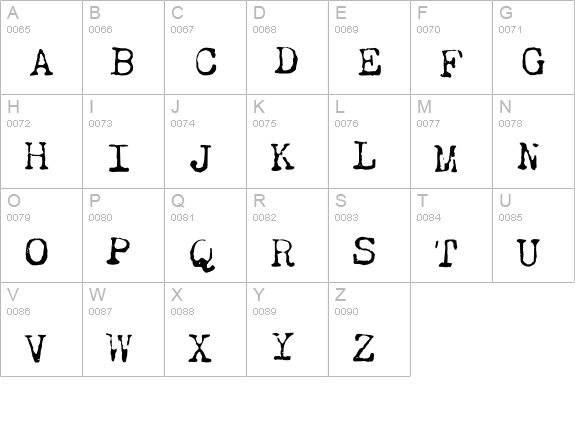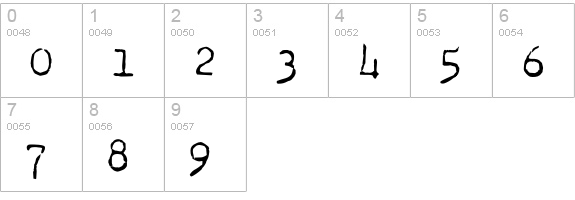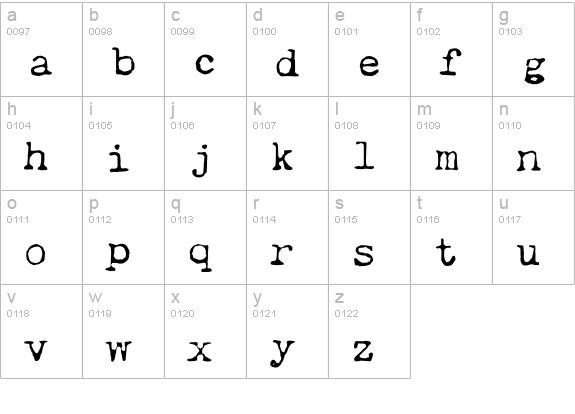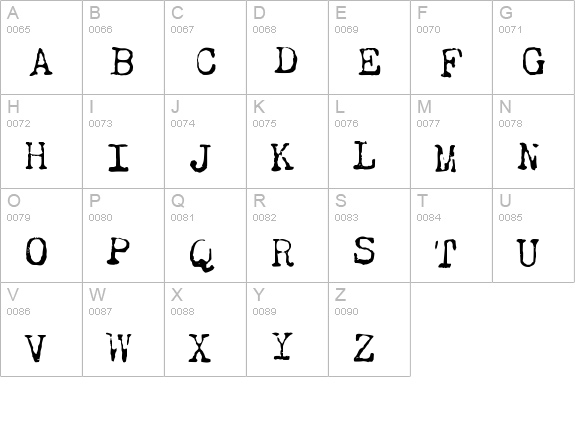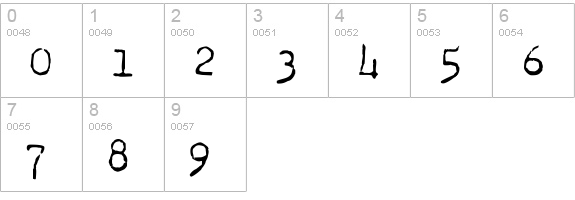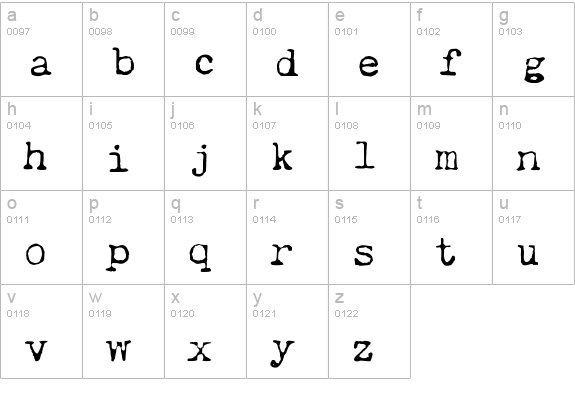
Chandler42Rough Font Details
Chandler42Rough font is a unique and stylish typeface that brings a touch of edginess to any design project. With its rough and rugged appearance, this font is perfect for adding a bold and dynamic look to your text. The irregular lines and distressed edges give Chandler42Rough font a raw and authentic feel that is sure to make a statement. Best of all, Chandler42Rough font is completely free to download at FontsMarket.com. Whether you're working on a graphic design project, a website, or any other creative endeavor, this font is a fantastic choice for adding a touch of personality and character. Download Chandler42Rough font today and unleash your creativity with this eye-catching typeface.